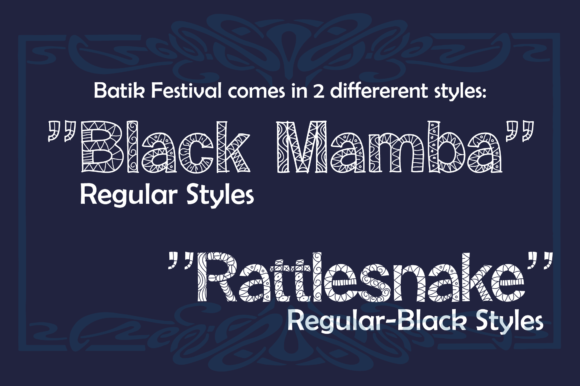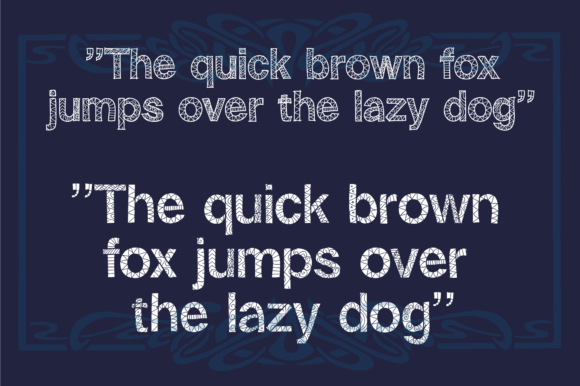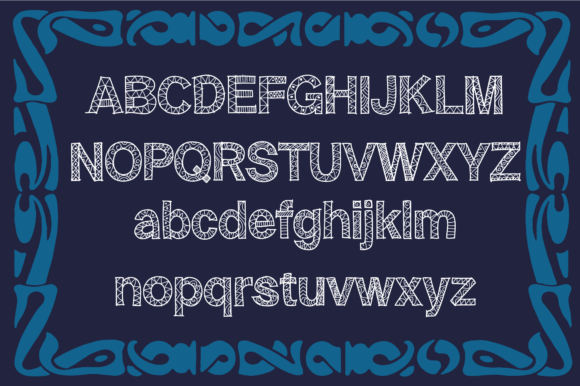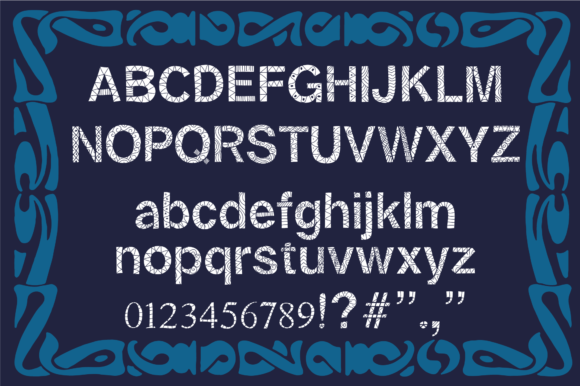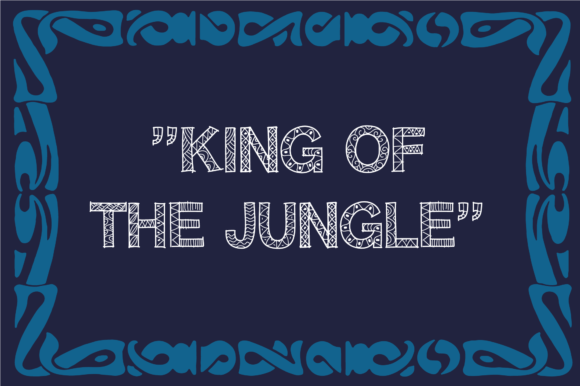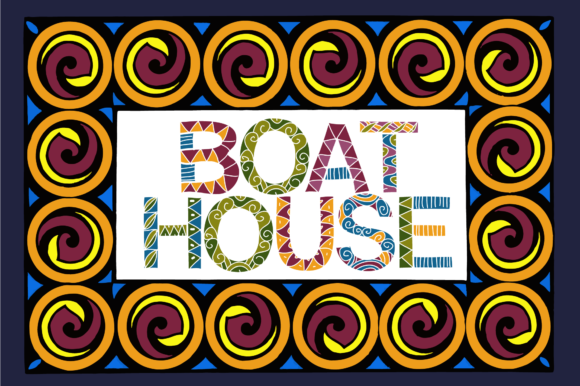
Discover the Magic of Batik Festival Font
Remember that moment when a spark of creativity strikes, and you feel the urge to bring your imagination to life? For designers, this moment is a daily occurrence, and it’s exactly what makes their job so thrilling. Whether you’re working on a new project or simply experimenting with different ideas, the right font can make all the difference.
That’s where the Batik Festival Font comes in – a simple yet stylish decorative font that’s perfect for adding a touch of elegance to your designs. Whether you’re creating posters, flyers, or any other visual content, this font is sure to elevate your work. Its versatility and aesthetic appeal make it a valuable tool for designers looking to take their projects to the next level.
- Font Family: Batik Festival Font is a unique, handmade-inspired font with a rich, cultural heritage.
- Unique Characteristics: The font’s intricate designs and patterns are inspired by traditional batik techniques, making it an excellent choice for cultural, artistic, or educational projects.
Designer Review: Batik Festival Font
Overall, the Batik Festival Font is an interesting and unique addition to the world of typography. Here’s my honest take on this font.
- The Batik Festival Font’s bold and expressive style makes it perfect for artistic and cultural projects.
- The use of intricate patterns and textures gives this font a distinctive and eye-catching look.
- The font is highly versatile and can be used in a wide range of contexts, from posters to book covers.
- The font may not be suitable for body text due to its bold and expressive style, which can be overwhelming for large amounts of text.
- The intricate patterns and textures may not display well at very small font sizes.
- The font may require additional formatting and adjustments to achieve the desired look.
While the Batik Festival Font has some limitations, its unique style and versatility make it a great choice for artistic and cultural projects. With some careful planning and formatting, this font can add a touch of elegance and sophistication to any design.
The Batik Festival Font is ideal for creating traditional and cultural designs, especially for events and celebrations. It’s also great for adding a unique and exotic touch to your branding, packaging, or marketing materials.